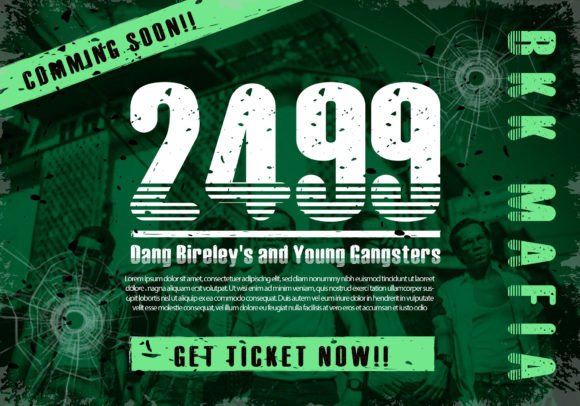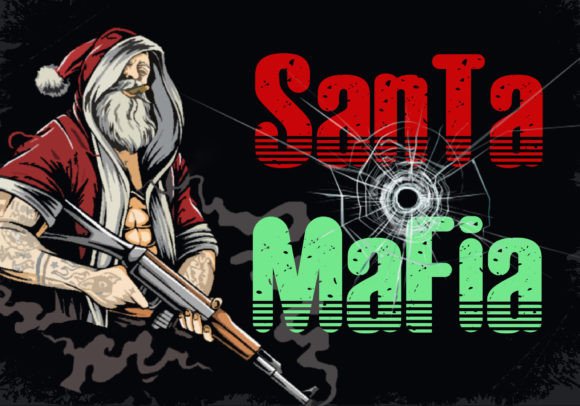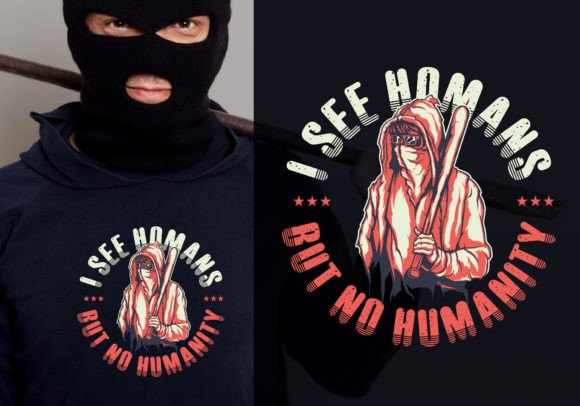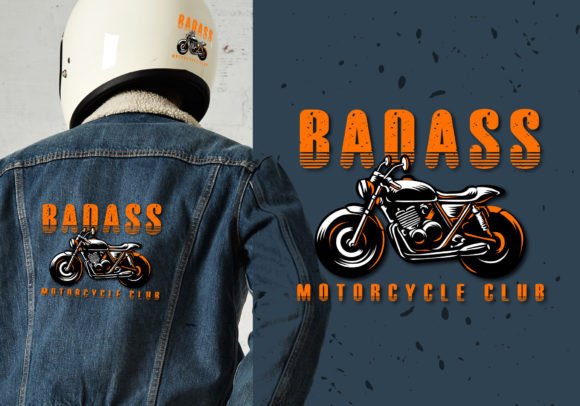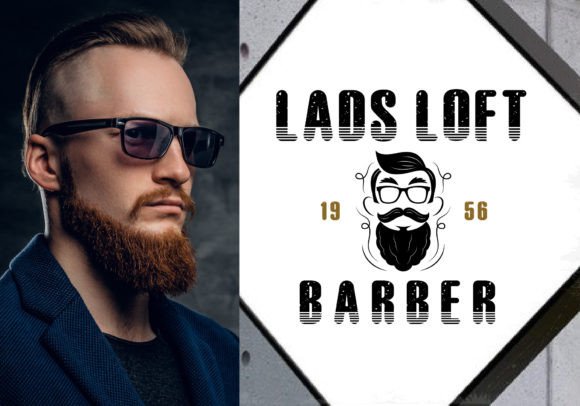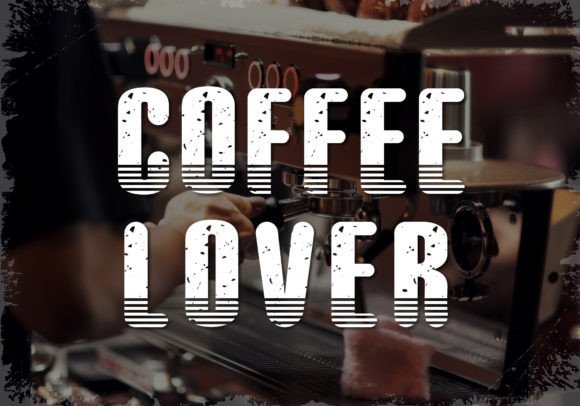
The Ultimate Retro Revival: Unlocking the Power of Bkk Mafia Font
Have you ever been browsing through old photographs, vinyl records, or vintage posters and felt an instant rush of nostalgia? That’s the magic of retro design, and it’s a feeling that can be harnessed in your creative projects with the right tools. For designers and enthusiasts alike, discovering a font that captures the essence of the 70s and 80s is a dream come true.
Enter Bkk Mafia Font, a display font that’s been designed to transport you back in time. With its unique blend of retro flair and modern sophistication, this font is perfect for adding a special touch to any design idea you can think of. Whether you’re working on a branding project, creating a promotional poster, or designing a website, Bkk Mafia Font is sure to make your work stand out.
Bkk Mafia Font Key Features
- Font Style: Bkk Mafia Font is a modern, bold, and edgy sans-serif font.
- Character Count: The font contains 250+ characters, including uppercase and lowercase letters, numbers, and special characters.
- Unique Characteristics: Bkk Mafia Font features a unique, hand-drawn style with bold lines and geometric shapes, giving it a distinctive and eye-catching look.
Bkk Mafia Font Review
As a designer, I was excited to dive into the Bkk Mafia Font, and here’s my honest take on it.
The Bkk Mafia Font has a bold and edgy vibe that’s perfect for any project that needs a strong, modern feel. The font is well-designed and looks great at various sizes. It’s also highly legible, which is essential for any font.
- Highly customizable with a range of styles and weights
- Perfect for use in logos, headings, and body text
- Looks great on both light and dark backgrounds
While the Bkk Mafia Font has its strengths, there are a few areas where it falls short. The font can feel a bit too aggressive in certain contexts, and it may not be the best choice for more formal or traditional projects. Additionally, some users may find the font’s bold lines a bit overwhelming.
- May not be suitable for more formal or traditional projects
- Can feel a bit too aggressive in certain contexts
- May be overwhelming for some users
Overall, I think the Bkk Mafia Font is a solid choice for designers looking for a bold and modern font. While it may not be perfect for every project, it’s a great option for anyone looking to add some edge to their design.
Tips for Getting the Most Out of Bkk Mafia Font
To get the most out of Bkk Mafia Font, consider the following tips:
- Use the font in conjunction with bold, bright colors to create a striking design.
- Experiment with different font sizes and styles to add depth and visual interest.
- Combine the Bkk Mafia Font with other fonts to create a unique and memorable design.
The Bkk Mafia Font is ideal for use in a variety of applications, including